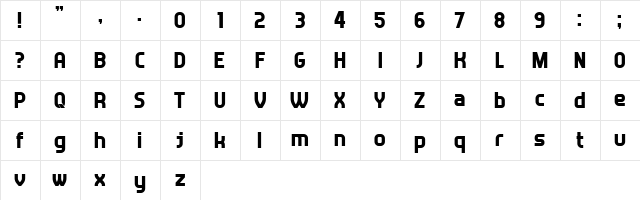
Answer Regular
Design Context for Answer Typeface
Answer offers clean, dependable letterforms without strong stylistic allegiance, making it a practical choice for designers who need flexibility.
Pro Tip: Use Answer in both headline and body roles to test its range before committing to a single application.